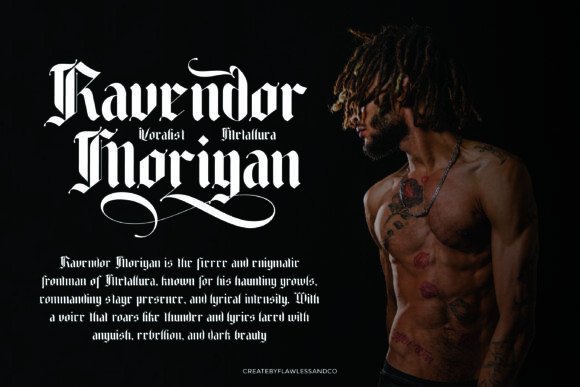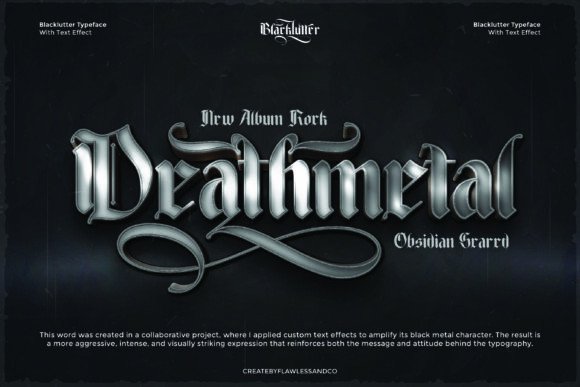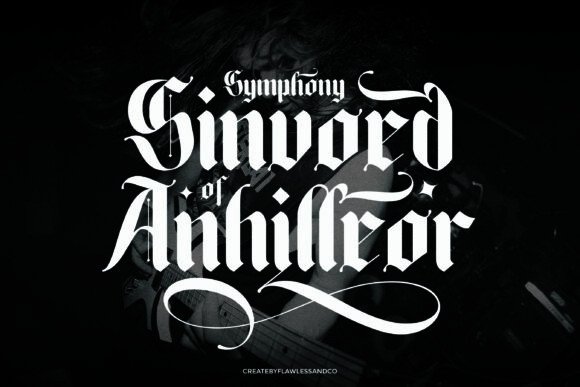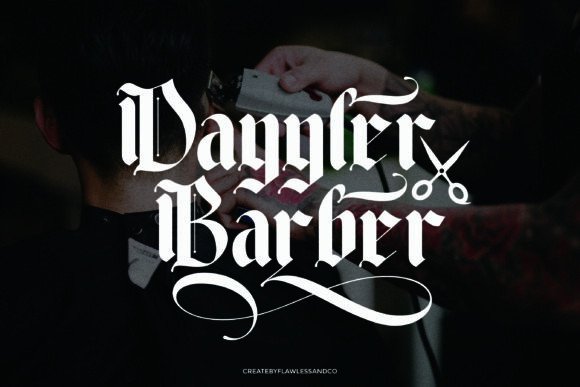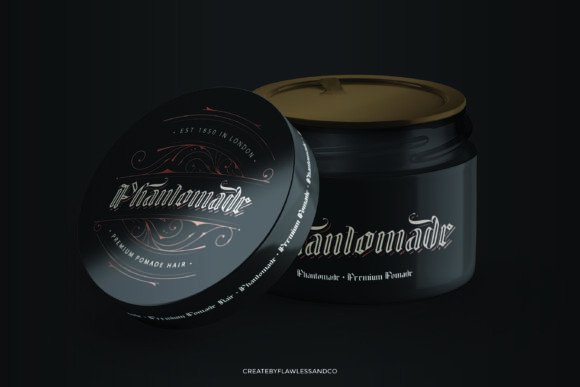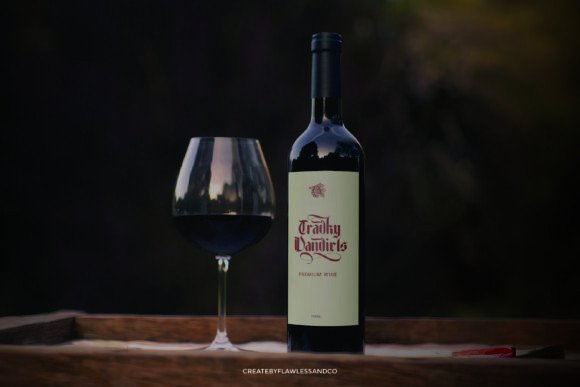
Unleash the Power of Blacklutter Font: A Bold and Modern Blackletter Typeface
In the world of typography, few fonts command attention and exude authority like Blacklutter. This bold and powerful blackletter typeface seamlessly blends traditional gothic style with a modern twist, making it a versatile and sought-after choice for designers and crafters. With its sharp edges, dramatic strokes, and distinctive letterforms, Blacklutter is perfect for designs that demand strength, style, and an unmistakable presence.
The Essence of Blacklutter: A Modern Take on Traditional Gothic Style
Blacklutter’s design roots are firmly planted in the rich tradition of gothic typography. However, it evolves this classic style by incorporating contemporary elements that give it a fresh and modern feel. The result is a typeface that pays homage to its heritage while standing out in today’s design landscape. Each letterform in Blacklutter is meticulously crafted to convey a sense of power, elegance, and sophistication.
Key Features of Blacklutter Font
- Bold and Powerful Strokes: Blacklutter’s strokes are strong and commanding, making it perfect for headlines, titles, and any design element that needs to stand out.
- Sharp Edges and Points: The sharp edges and points in Blacklutter add to its dramatic appearance, giving it a distinctive flair that sets it apart from more conventional typefaces.
- Distinctive Letterforms: Each letter in Blacklutter is uniquely designed with a gothic influence, yet it maintains a level of modernity that makes it versatile for various design applications.
- Versatile and Highly Legible: Despite its bold nature, Blacklutter remains highly legible, making it suitable for both large and small sizes, from billboards to business cards.
Applications of Blacklutter Font
Blacklutter’s unique combination of traditional gothic elements and modern style makes it incredibly versatile. Here are some of the ideal applications for this powerful typeface:
- Branding and Logos: For businesses looking to make a strong statement, Blacklutter can help create a brand identity that exudes power, reliability, and style.
- Posters and Flyers: Whether you’re promoting an event, a product, or a cause, Blacklutter’s commanding presence ensures your message captures attention.
- Merchandise: From t-shirts to mugs, Blacklutter’s bold and distinctive style makes it perfect for merchandise design that stands out.
- Album Covers and Music Branding: For musicians and music producers, Blacklutter offers a typographic solution that resonates with genres like rock, gothic, and metal.
- Apparel Design: Designers creating apparel will find Blacklutter to be an excellent choice for creating eye-catching and stylish garments.
- Tattoo Lettering: For tattoo artists and clients looking for a unique and meaningful font, Blacklutter provides a robust and artistic solution.
Tips for Using Blacklutter Effectively
To maximize the impact of Blacklutter in your designs, consider the following tips:
- Pair with Contrasting Fonts: Combine Blacklutter with simpler, more minimalist fonts for body text to create visual contrast and hierarchy.
- Experiment with Colors: While Blacklutter looks striking in black, don’t be afraid to experiment with other colors, especially metallic or bold hues, to enhance its dramatic effect.
- Consider Size and Scale: Blacklutter’s bold nature means it can be effectively used at various sizes. However, its impact is particularly pronounced in larger applications.
Blacklutter font is a bold and powerful blackletter typeface that brings a unique blend of traditional gothic style and modern flair to the world of typography. Its sharp edges, dramatic strokes, and distinctive letterforms make it an ideal choice for a wide range of design applications, from branding and posters to merchandise and tattoo lettering. Whether you’re a professional designer or a crafty DIY enthusiast, Blacklutter offers the tools to create striking, authoritative, and stylish designs that demand attention.
With Blacklutter, you don’t just choose a font; you make a statement. Embrace the power, elegance, and versatility of Blacklutter to elevate your designs and make them unforgettable.